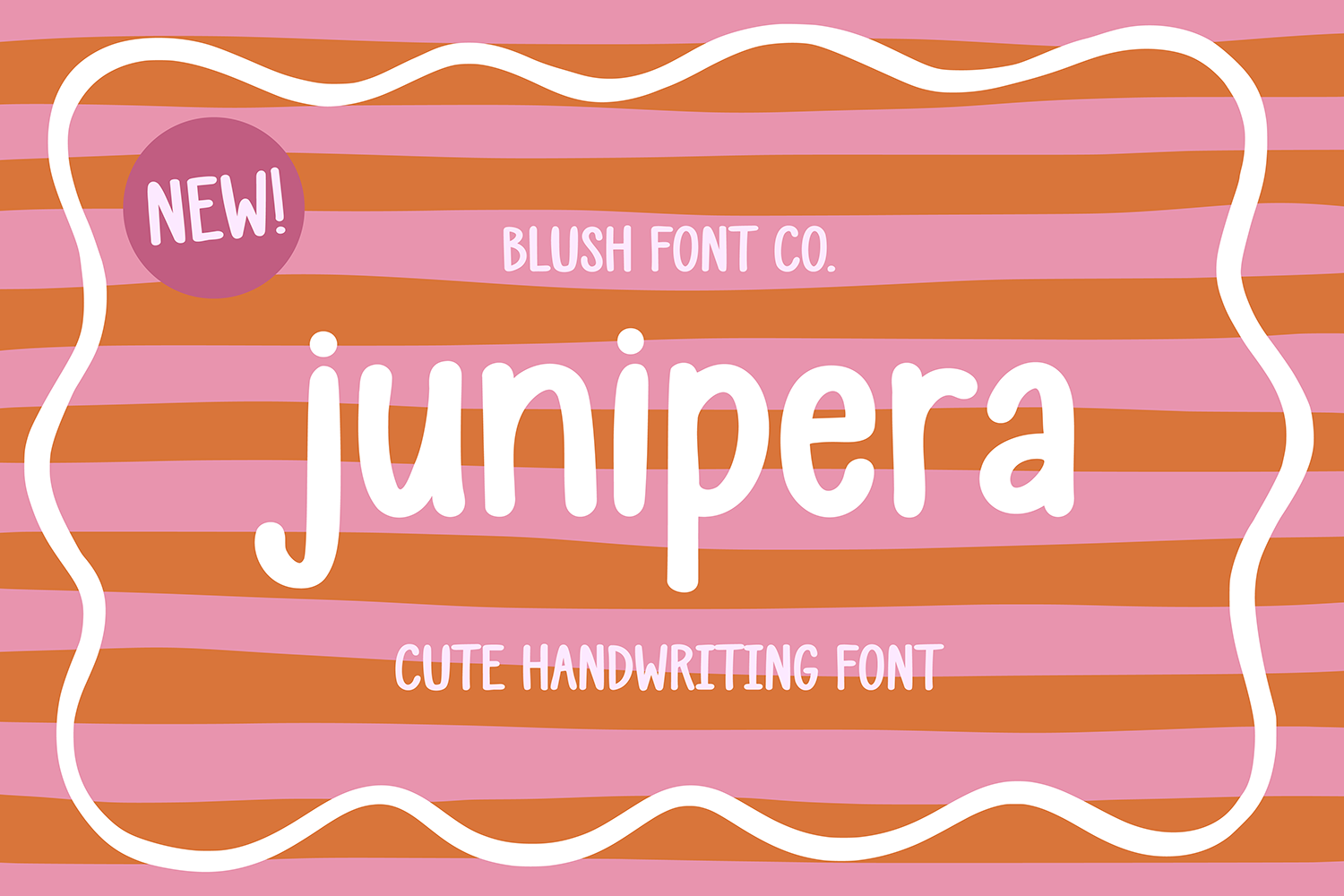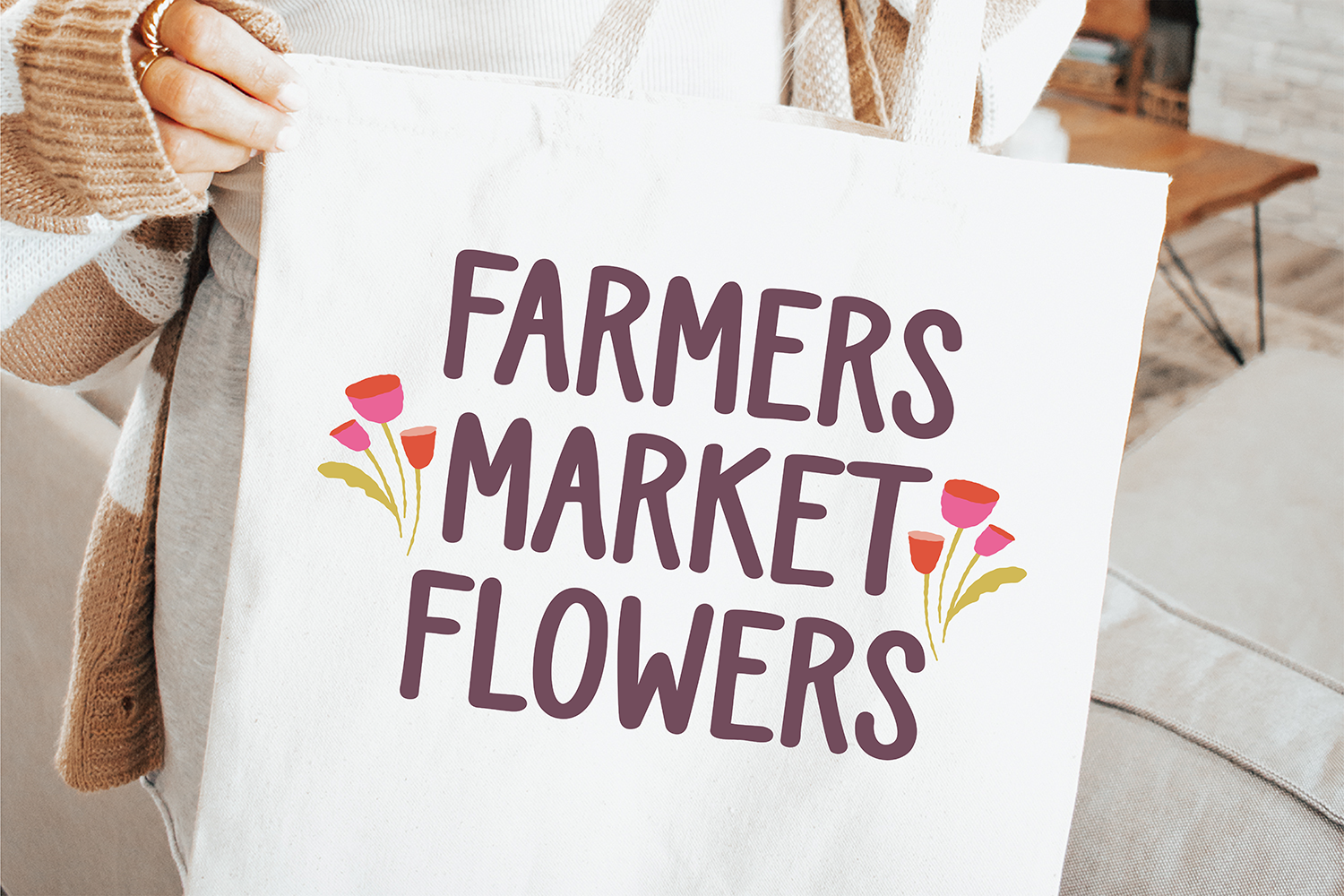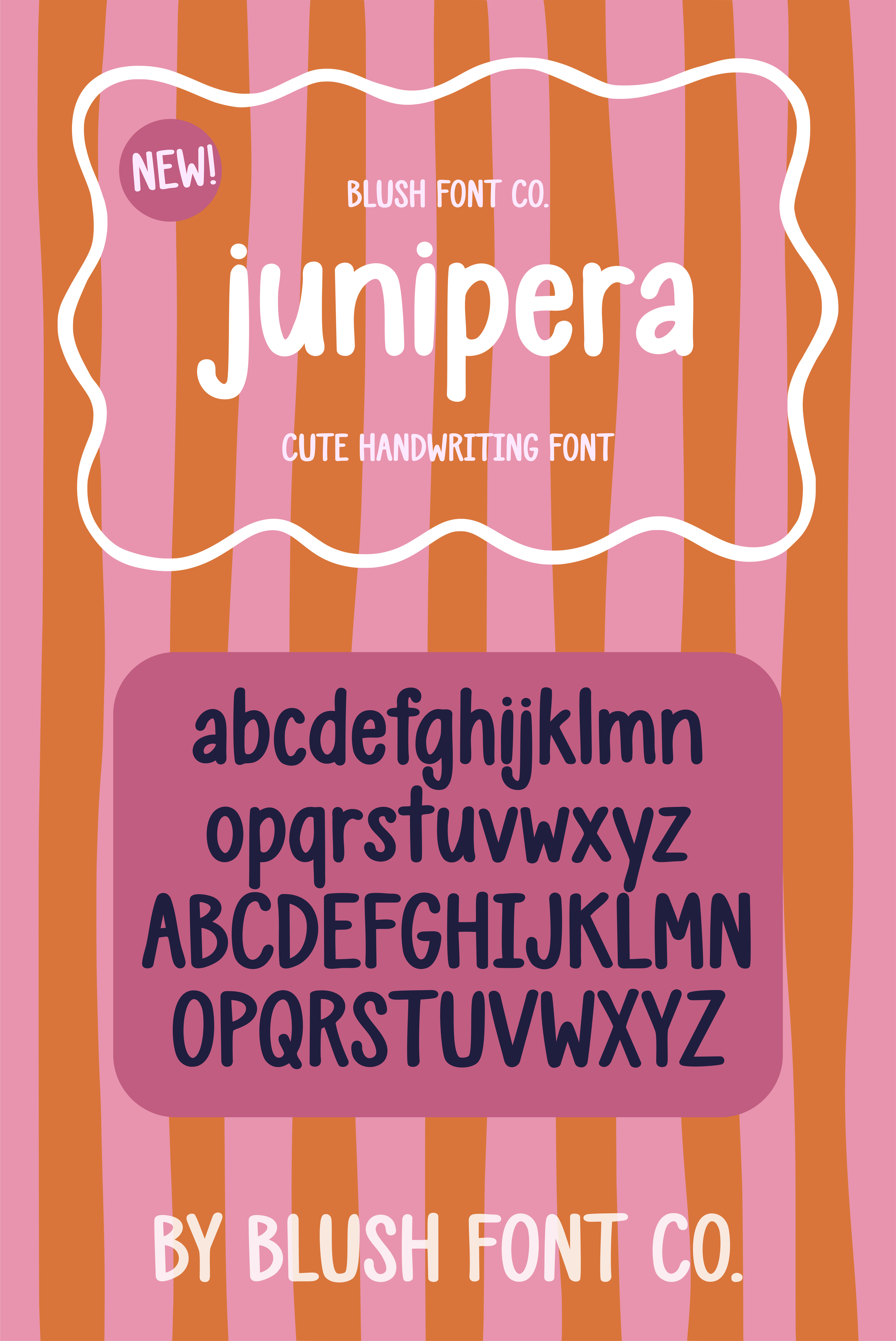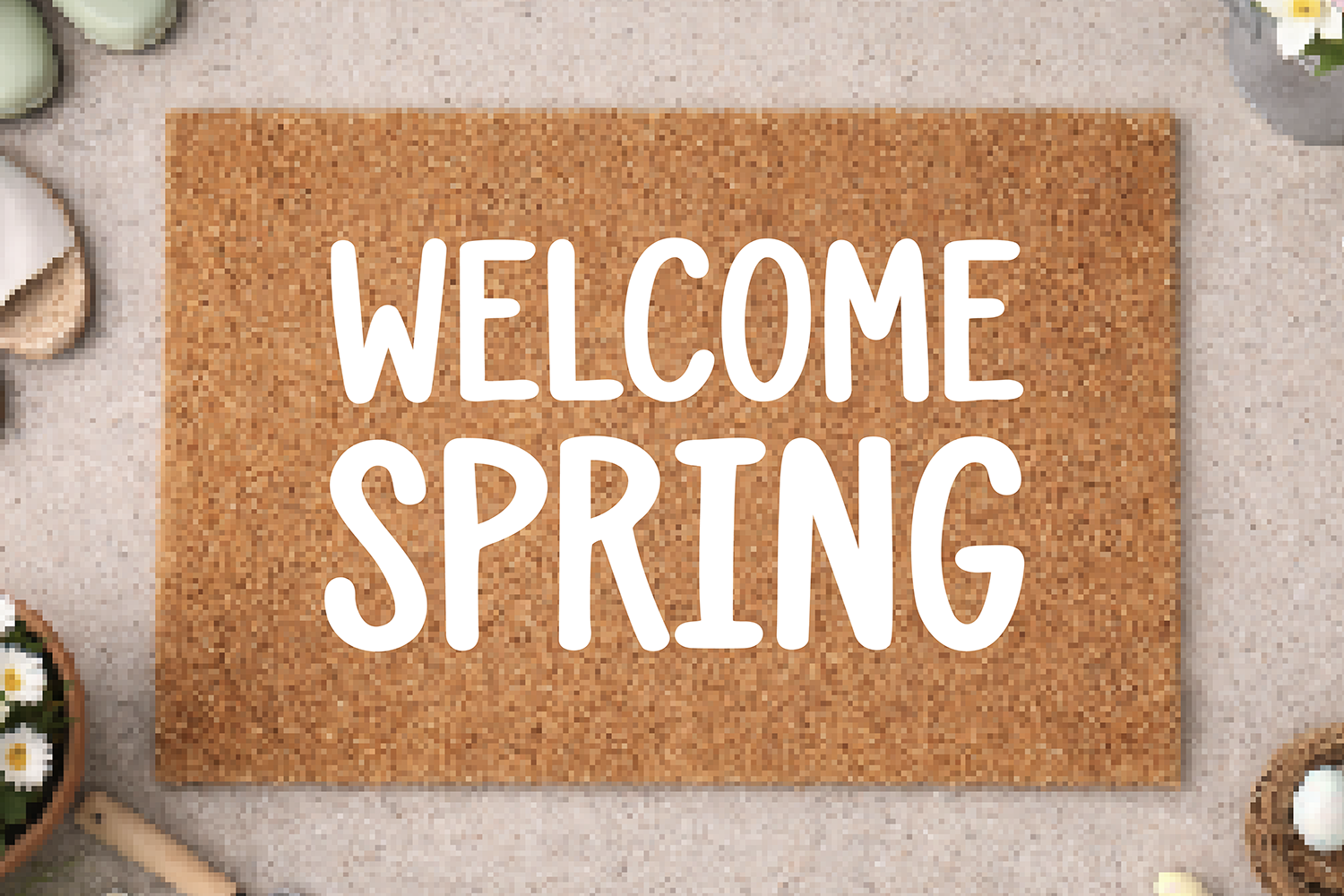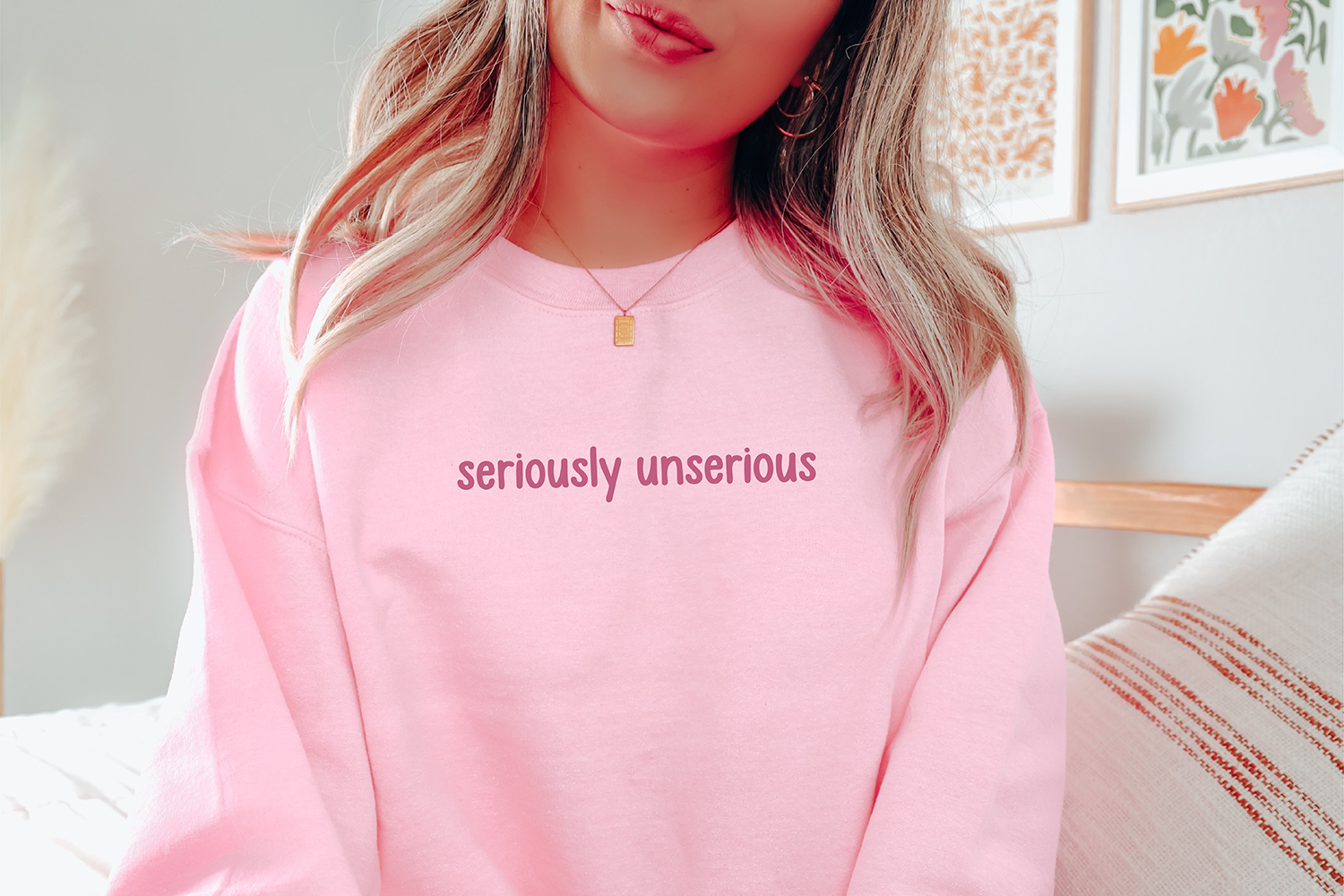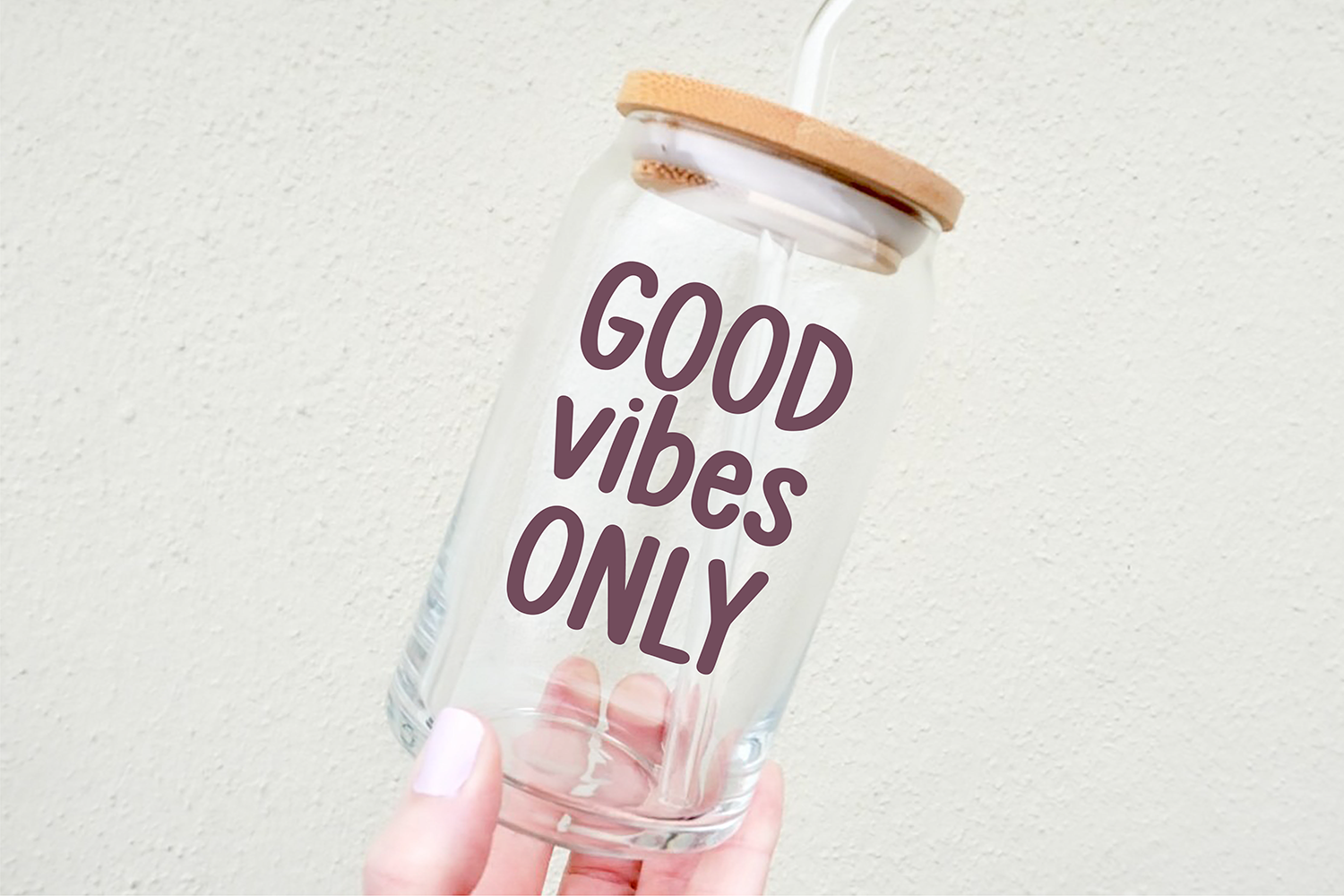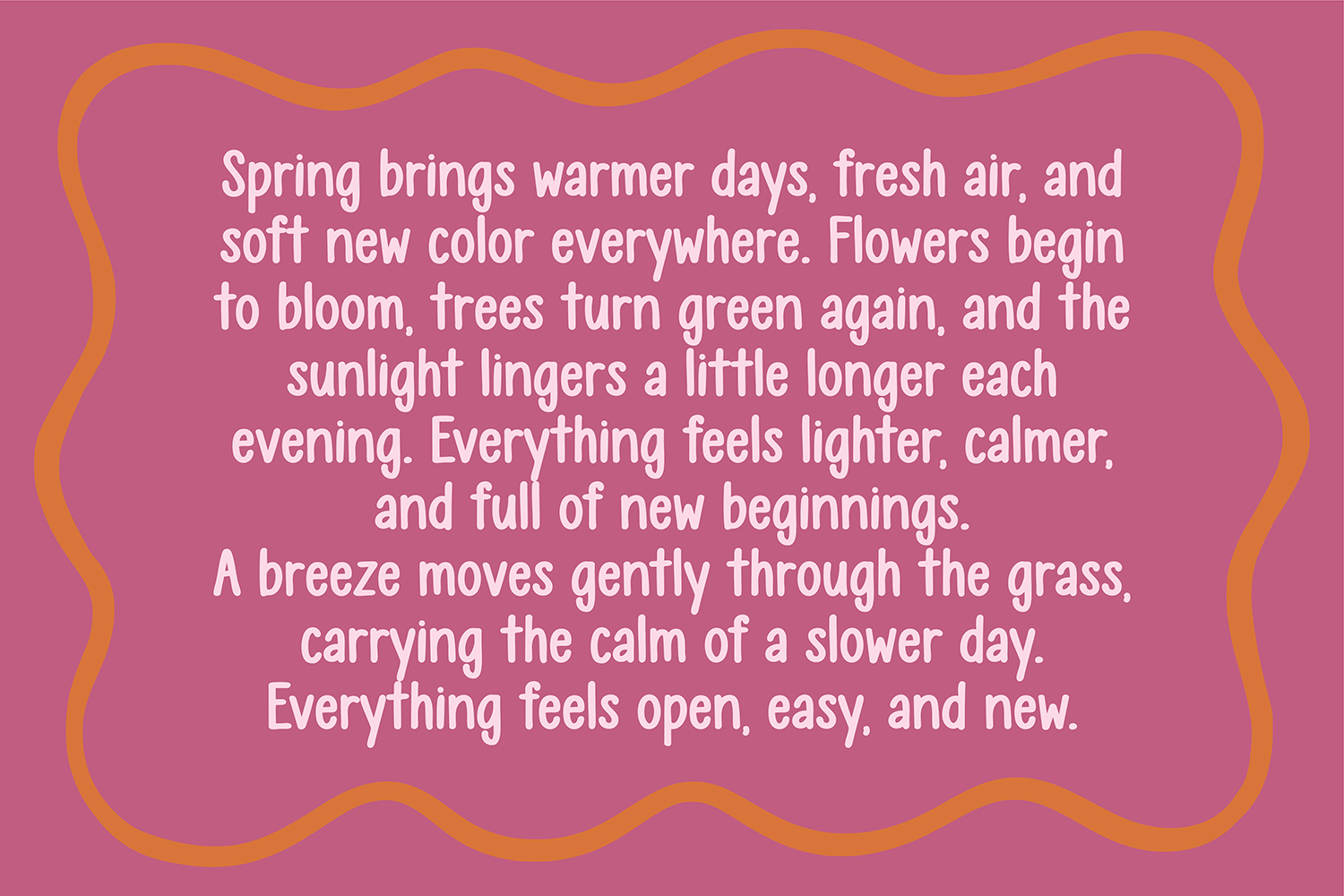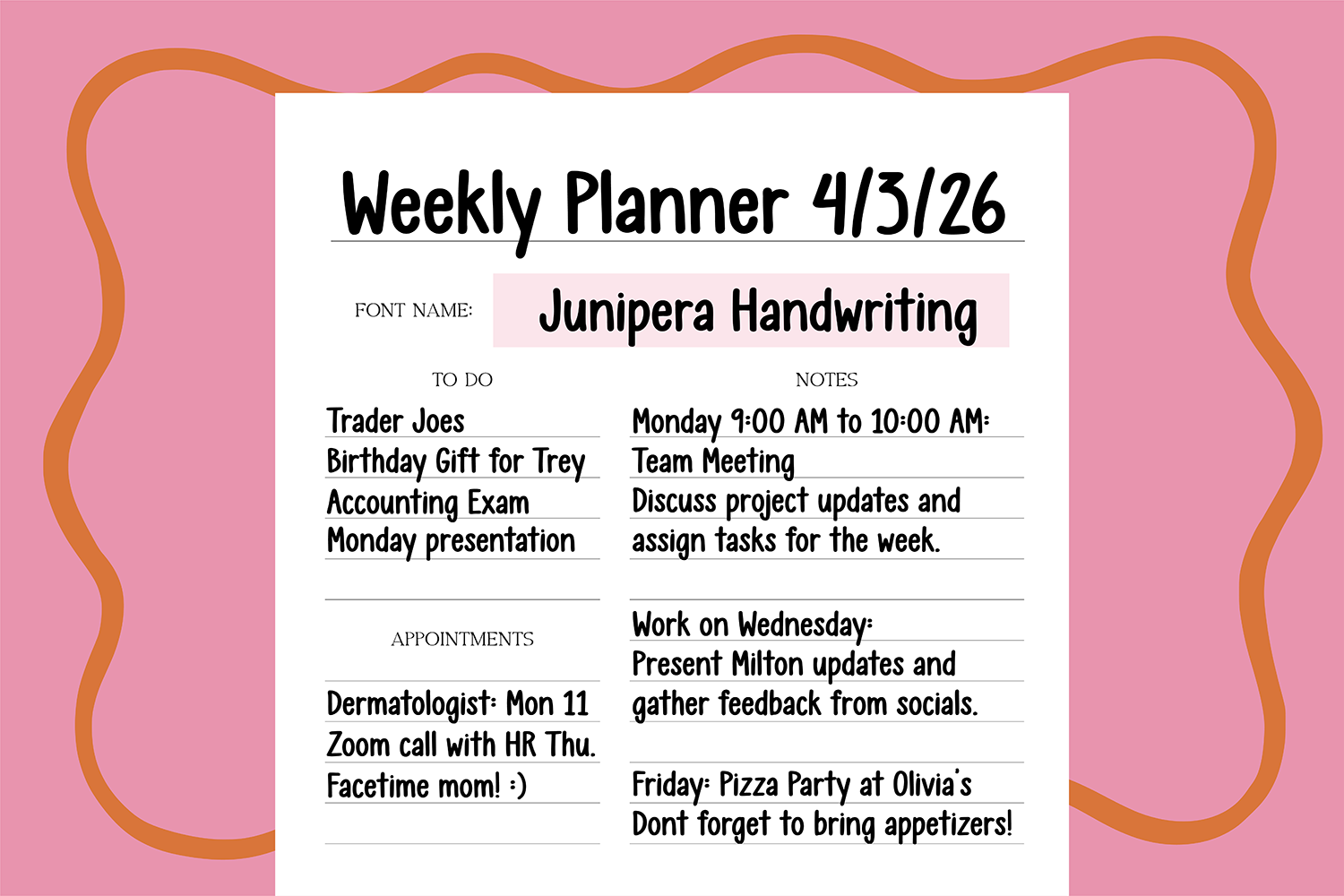
Junipera - Simple Handmade Sans Font | Minimal Handwritten Font for Cricut, Canva, GoodNotes, Logos, Social Media
This simple handmade handwriting sans font is perfect for Cricut, Canva, GoodNotes, and modern design projects. Featuring clean lines and a natural hand-drawn feel, this font is ideal for digital planners, note-taking, logos, social media graphics, and everyday designs.
Designed to be minimal and easy to read, this font has a soft, handwritten look without feeling messy or overly stylized. It works beautifully for both personal and professional use—whether you're creating aesthetic notes, branding materials, or clean, modern graphics.
This font is a great choice if you want a clean, versatile handmade sans style that feels modern, soft, and effortless across all your designs.